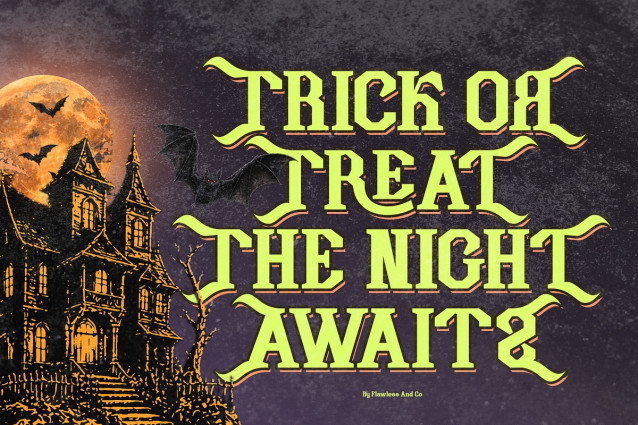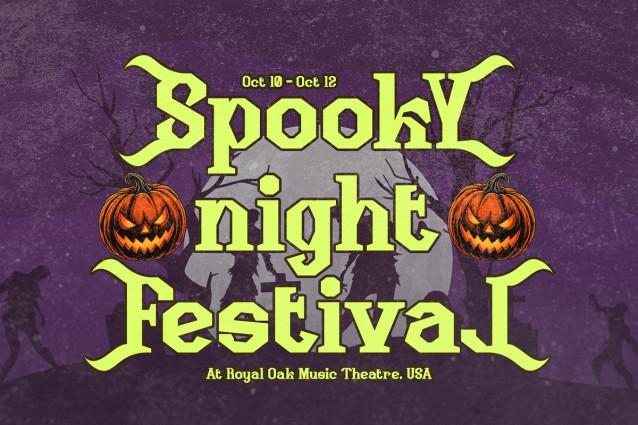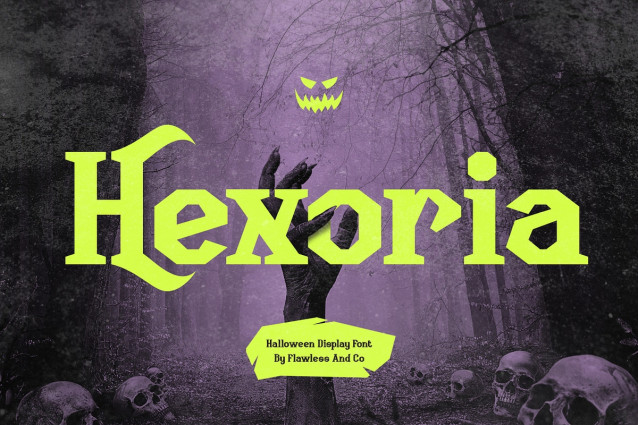
Hexoria – Halloween Display Font
Hexoria is a spooky and captivating Halloween display typeface that brings a dark, mysterious, and haunting character to your designs. Its distinctive letterforms create an eerie visual presence, making it perfect for projects that need a creepy yet eye-catching atmosphere.
With its dramatic personality and bold display style, Hexoria is ideal for Halloween-themed branding, posters, invitations, and seasonal campaigns. Whether you’re creating spooky event graphics or horror-inspired artwork, this font adds a memorable touch of mystery and Halloween spirit.